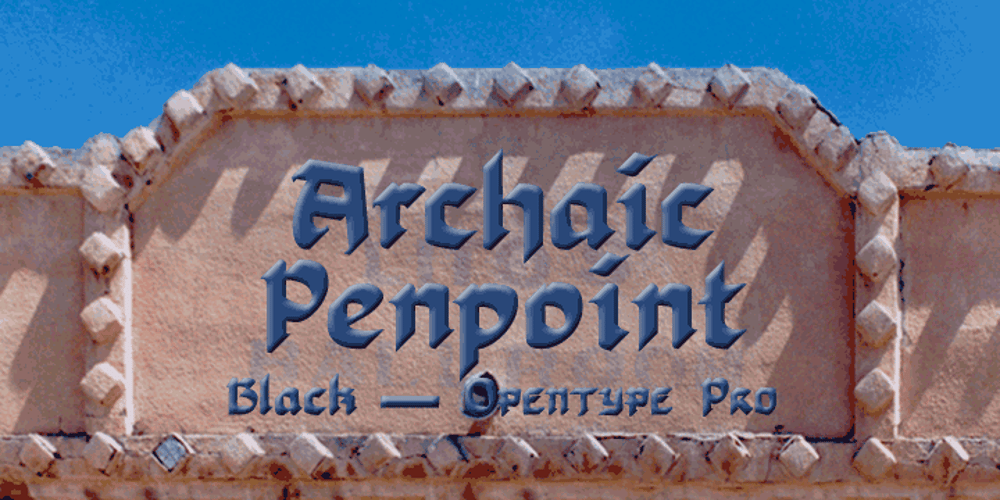
Archaic Penpoint Pro Font Family was designed by David Bergsland and published by Hackberry Font Foundry. Archaic Penpoint Pro contains 1 styles and family package options. This is a stylized blackletter font with many OpenType features and 403 characters — many of which are presently unknown for blackletter fonts: Caps, lower case, small caps, old style figures, numerators, denominators, accents characters and so on. The idea is a modern blackletter that is readable and usable for the American eye.